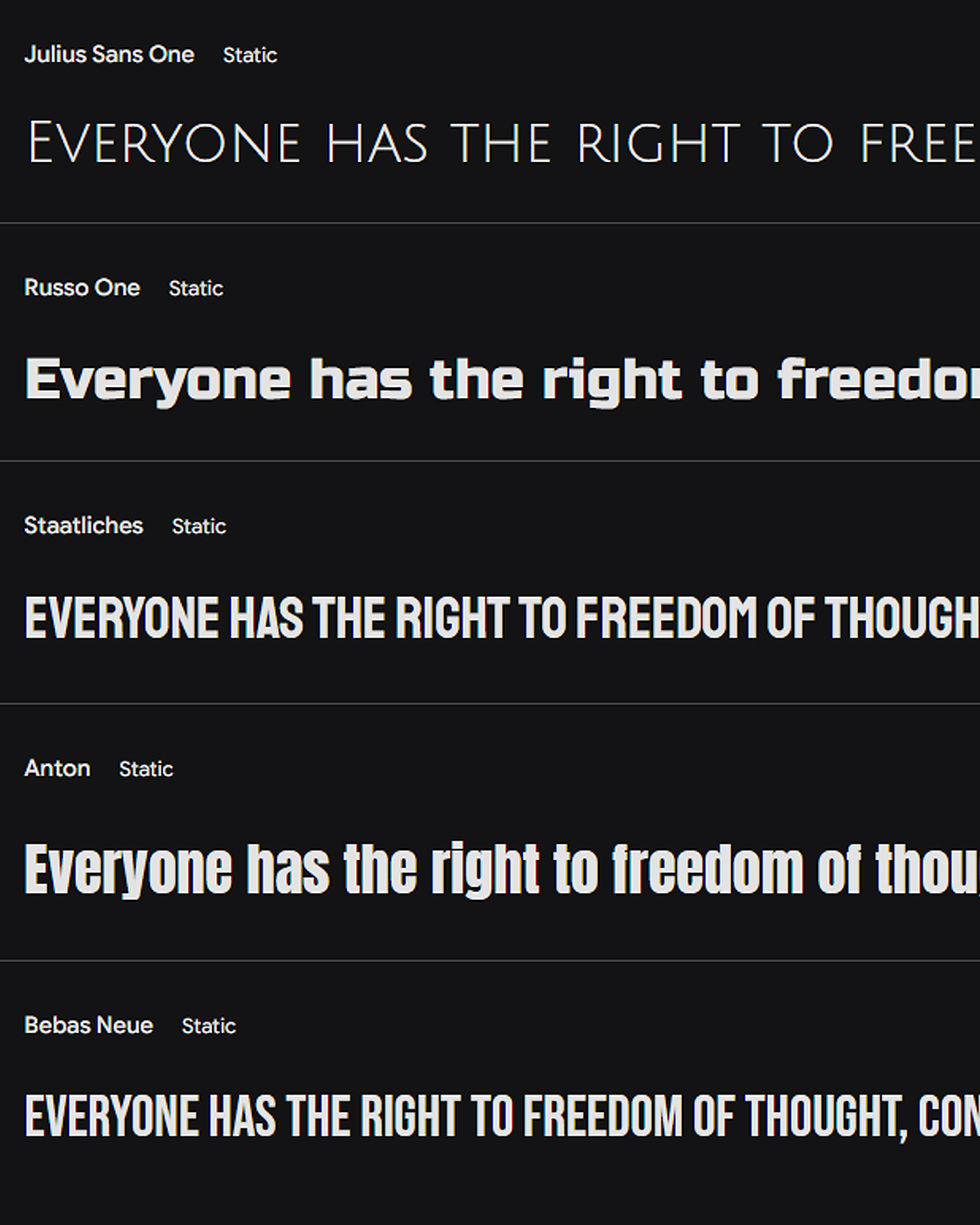
Unleash the wild with International Tiger Day – Premium Fonts (Pack of 10).
A fierce collection of bold, claw-scratch, and tribal-inspired typefaces perfect for wildlife campaigns, conservation posters, edgy branding, and jungle-themed designs. These fonts roar with personality and work beautifully across print and digital platforms.
🐾 Includes grunge, tribal, claw-mark, and serif variants
Let your typography speak volumes for the planet’s most majestic predator.